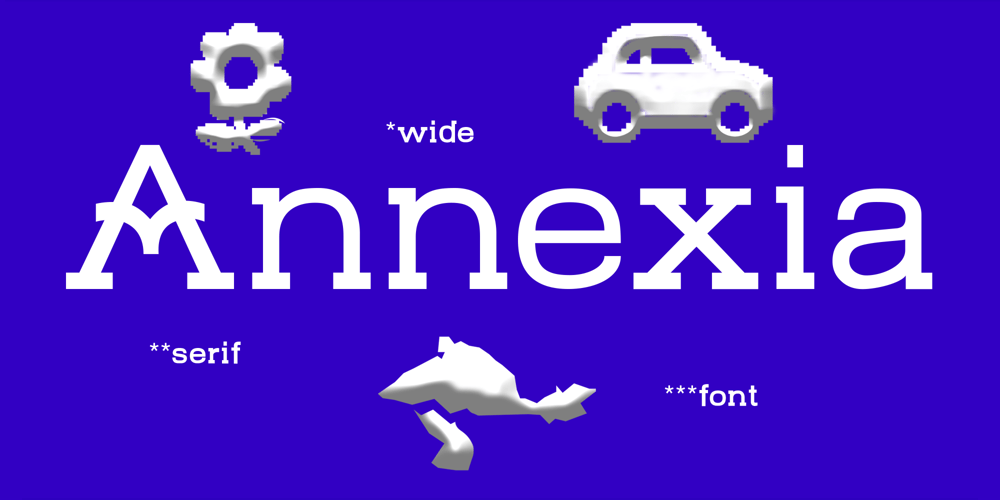
Annexia Font Family was designed by Pavel Bruev and published by Koshemare Studio. Annexia contains 3 styles and family package options. Annexia is a serif font with a several styles from Light to Bold. Serifs and stretched letters connect two times the past and the future, creating a perfect present. This font doesn’t have a specific mood. Depending on the tasks, it can show itself in different ways. The font is perfect for both text, headlines, and branding. The font was designed by Pavel Bruev and released by Koshemare studio in 2021